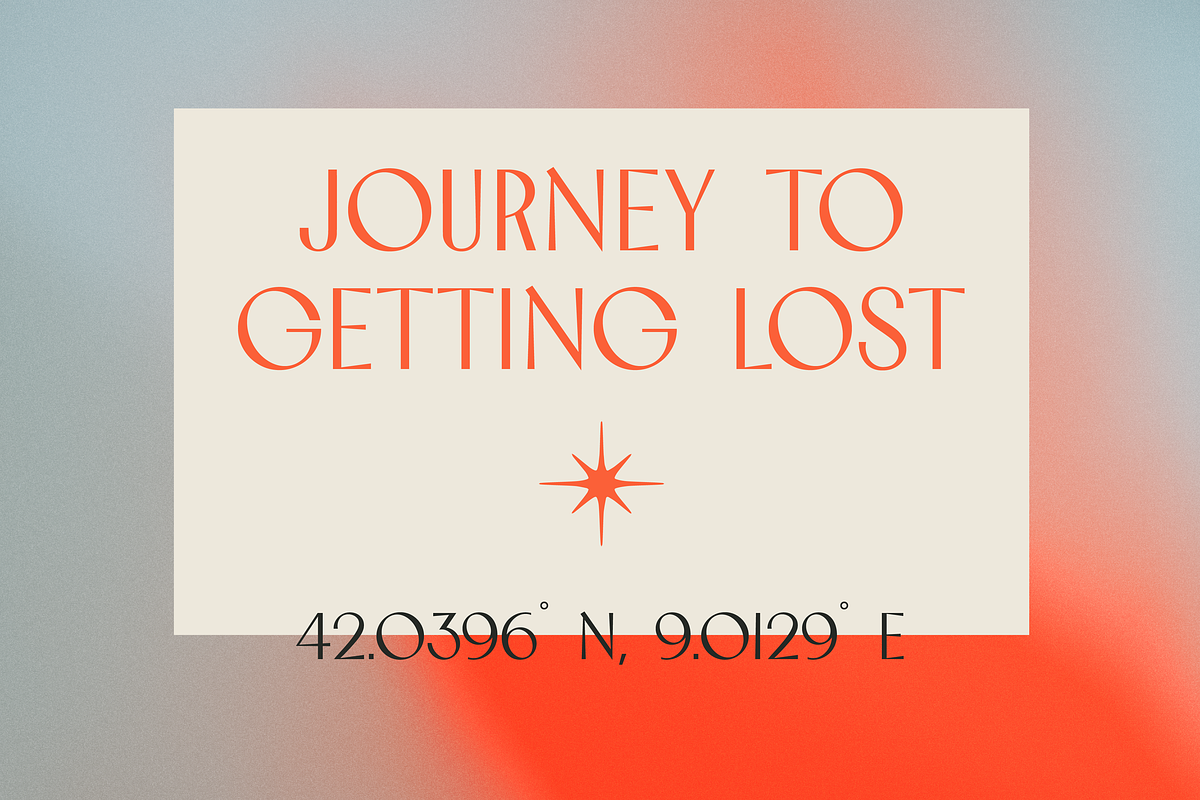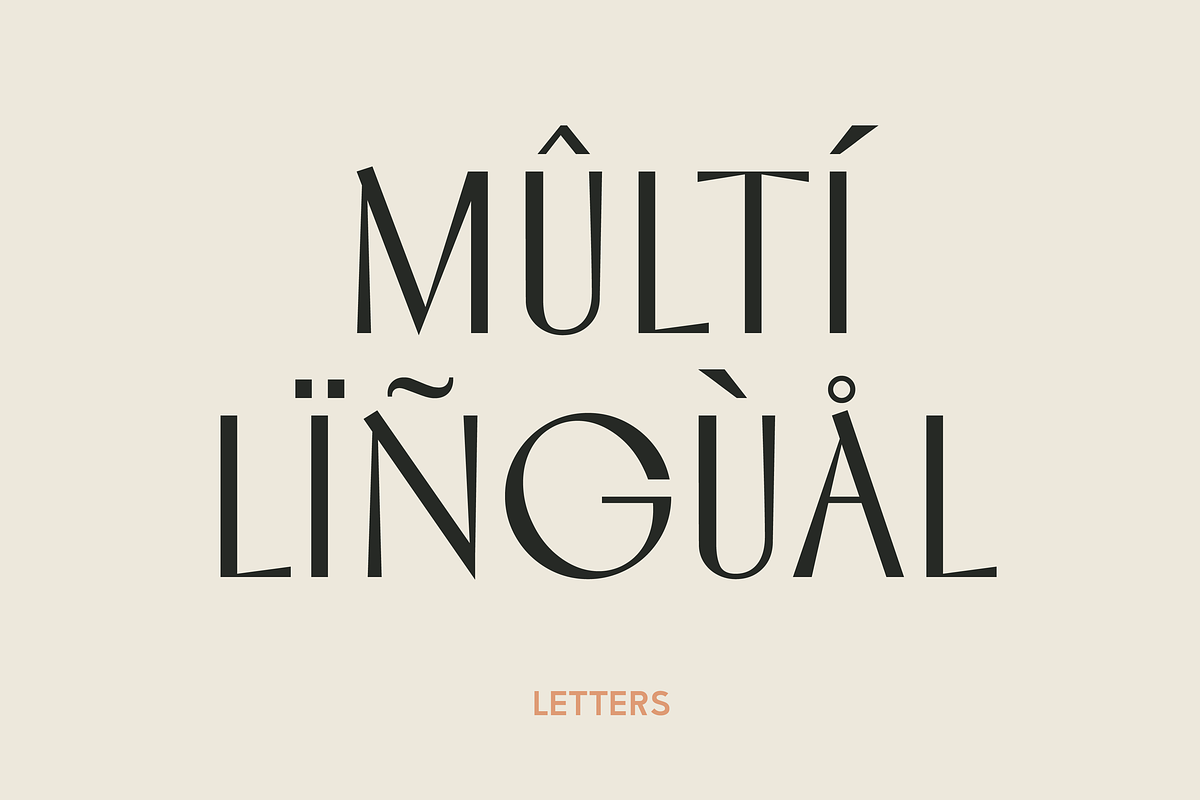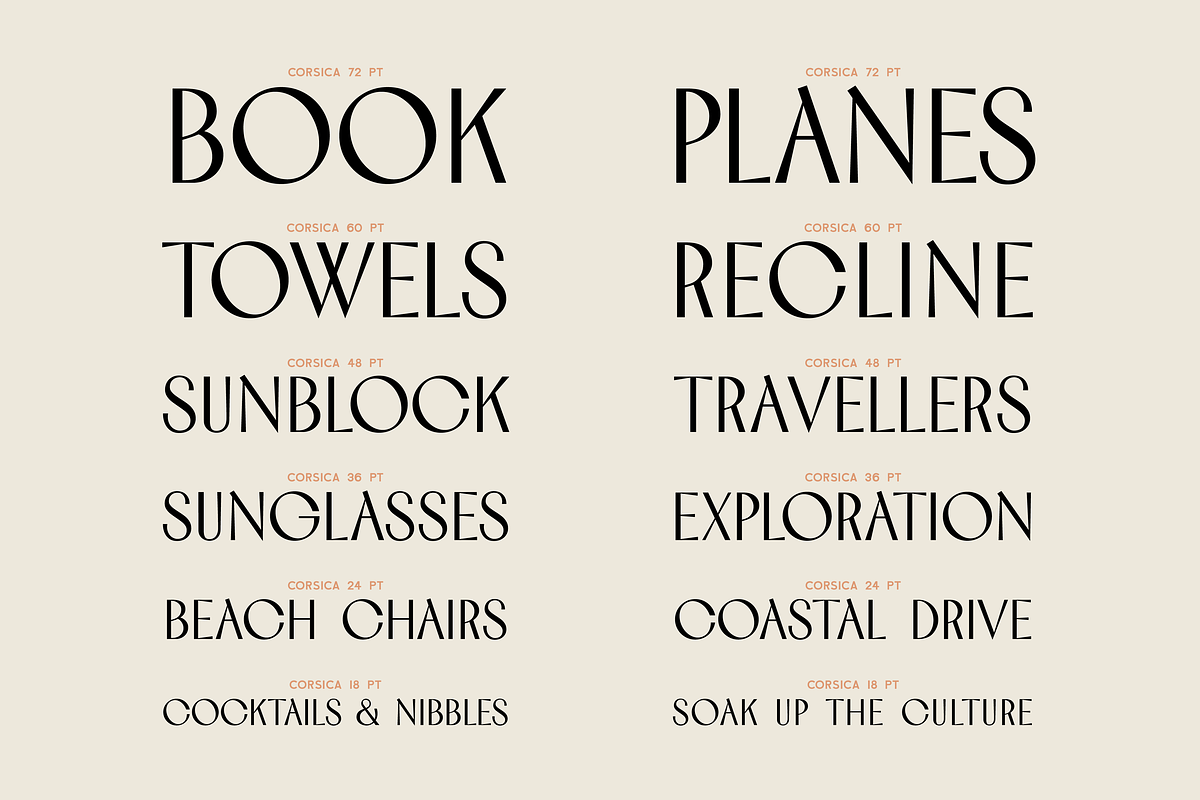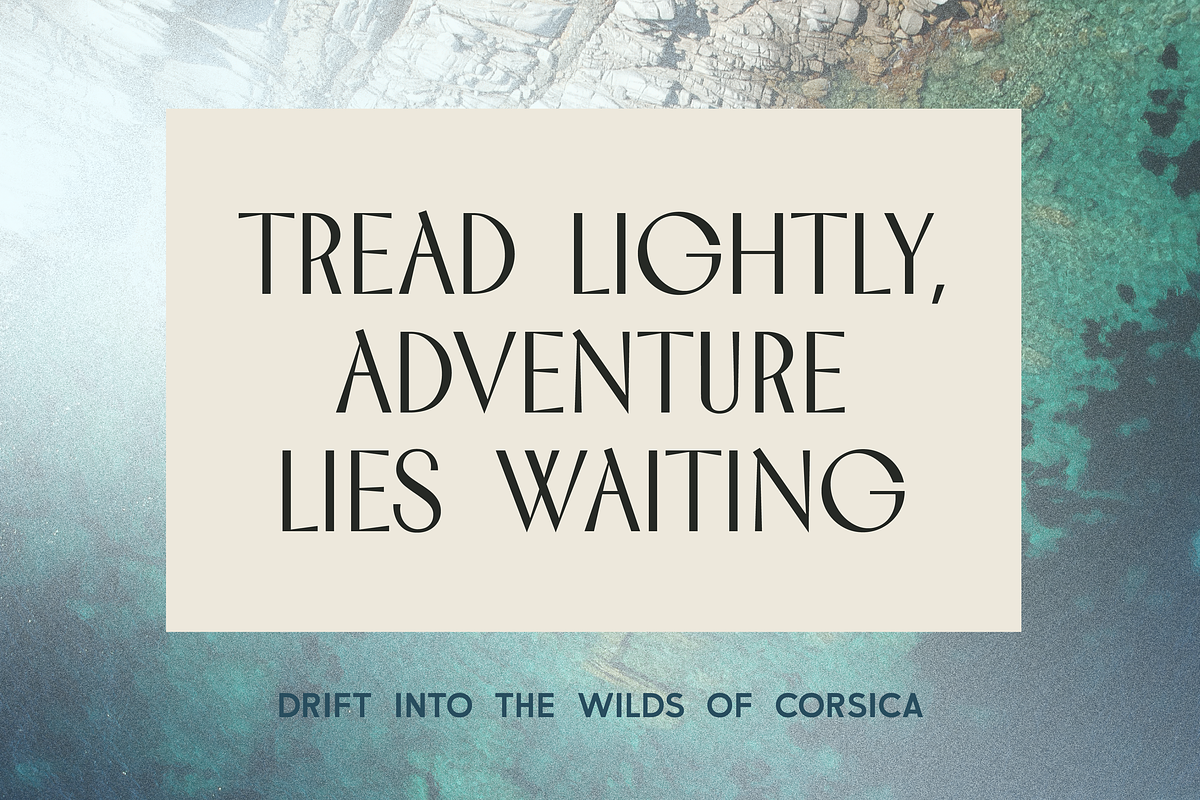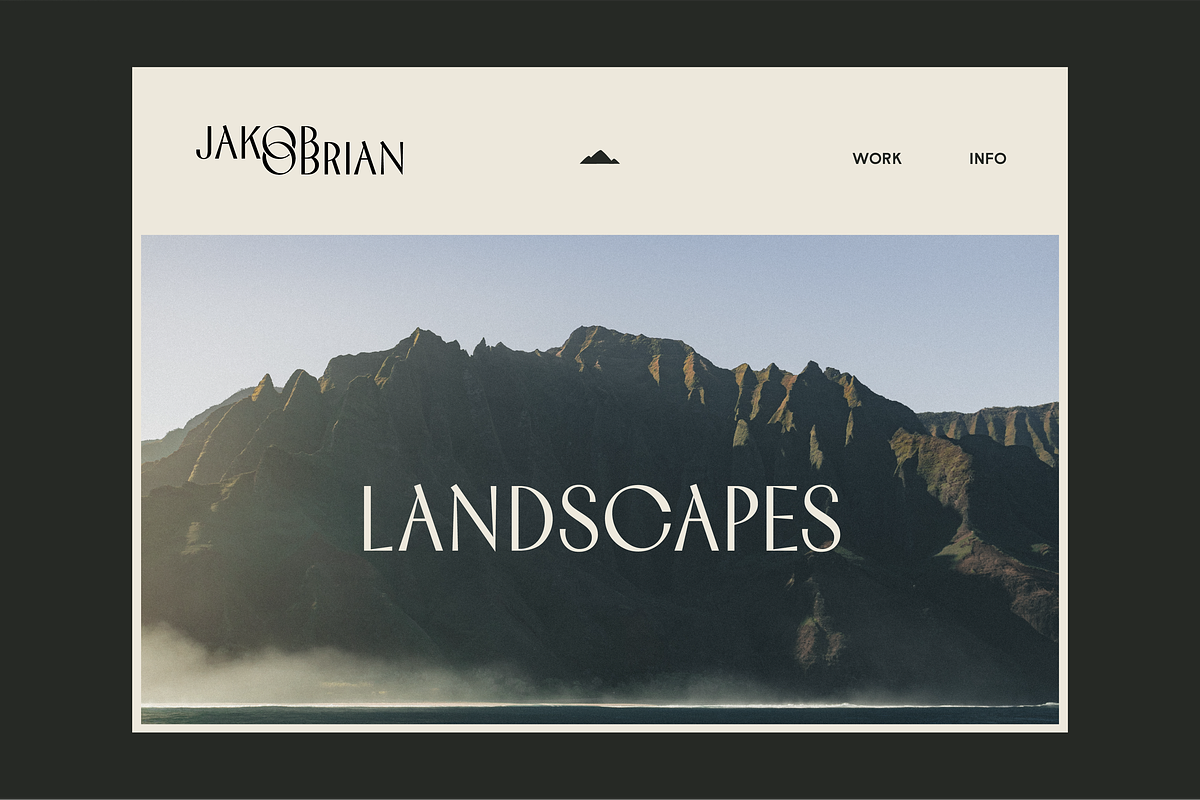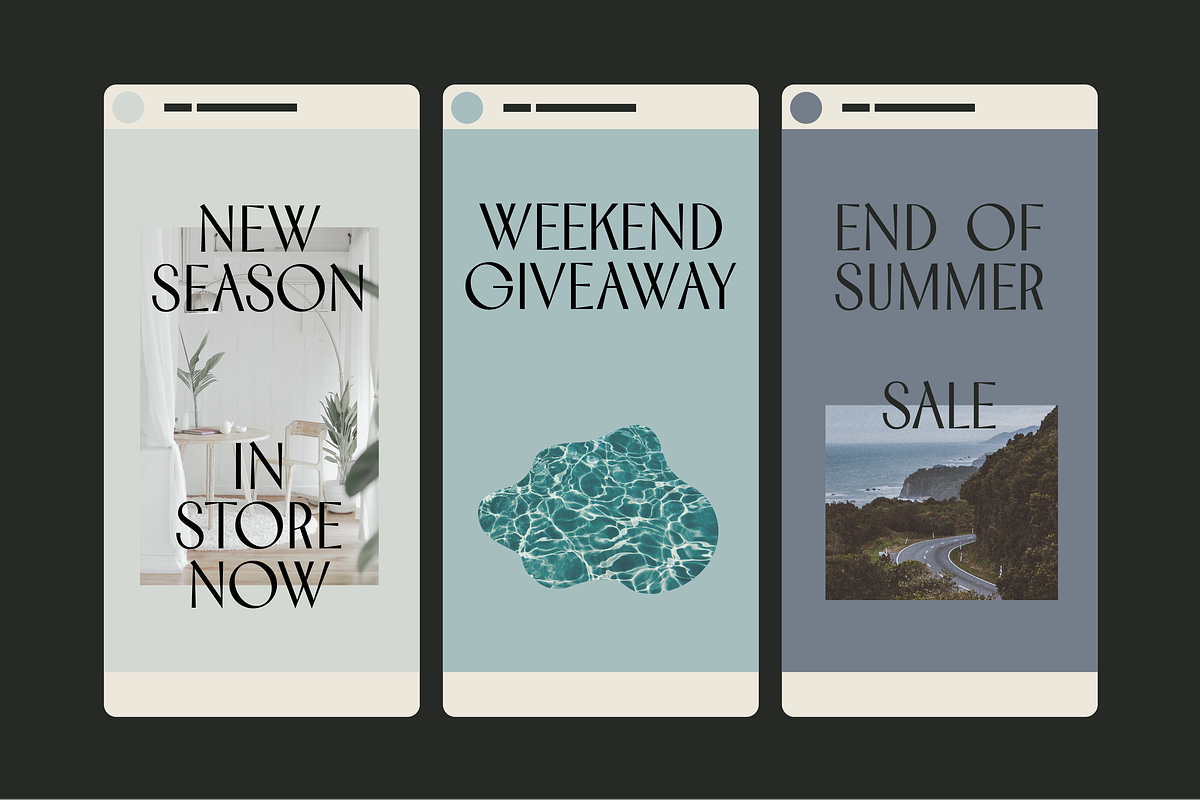
Corsica Display Font
From the adventurous, wide counters of ‘C, G, O & Q’, to the relaxed diagonal stress showcased throughout, Corsica features a brilliant contrast between upright and laid back. This decorative display font is both modern and nostalgic and is well-suited to logos, headlines or short to medium length texts where a bold distinctive style is required. It also pairs beautifully with a sans serif font.
This font was designed while longing for a trip to the Mediterranean – taking in some rugged mountains, breathtaking clifftop views or simply relaxing by the beach in Corsica.
- ALL CAPS font